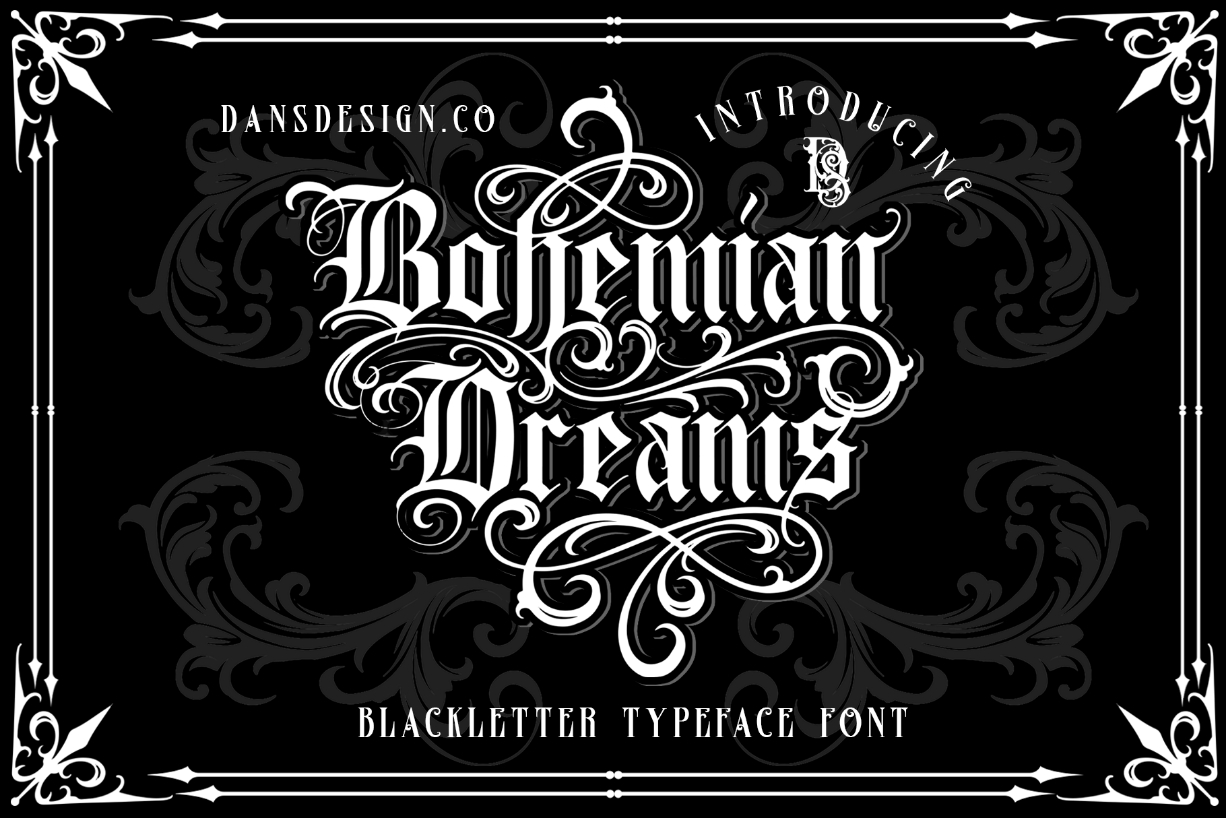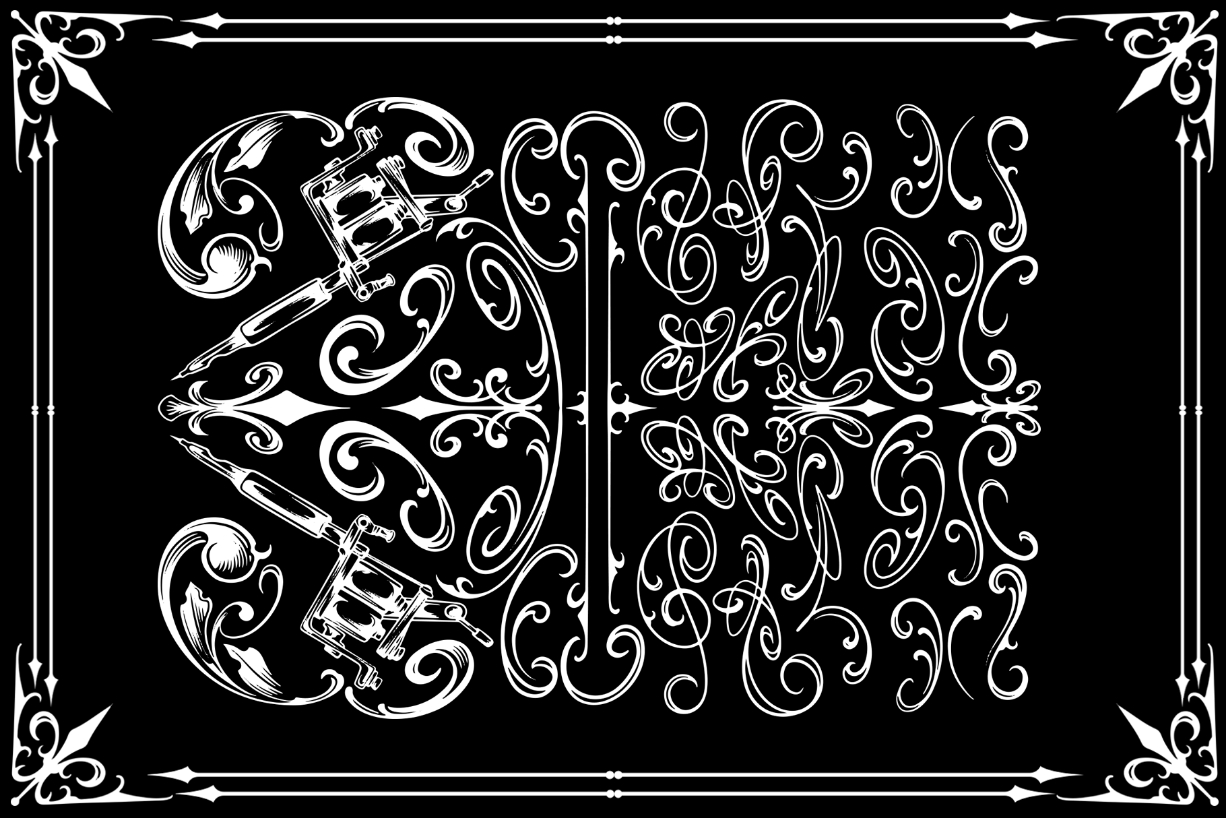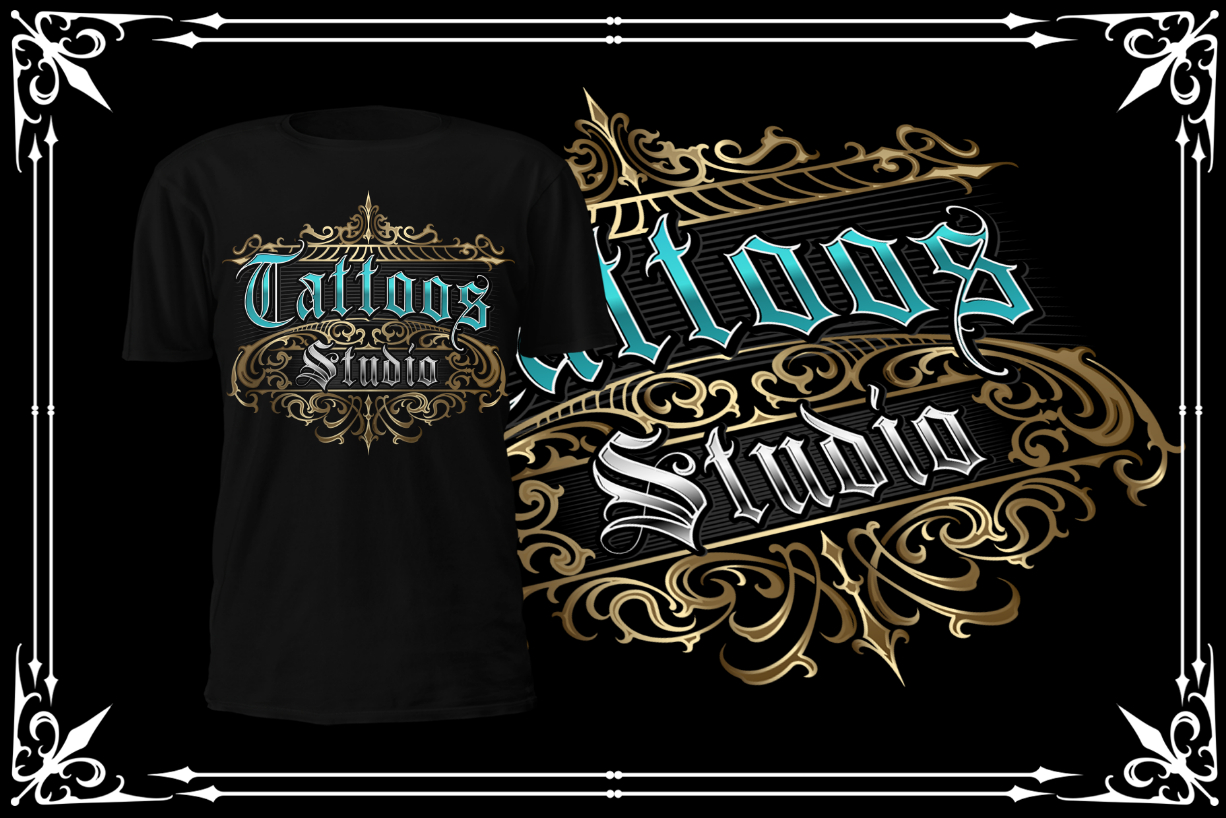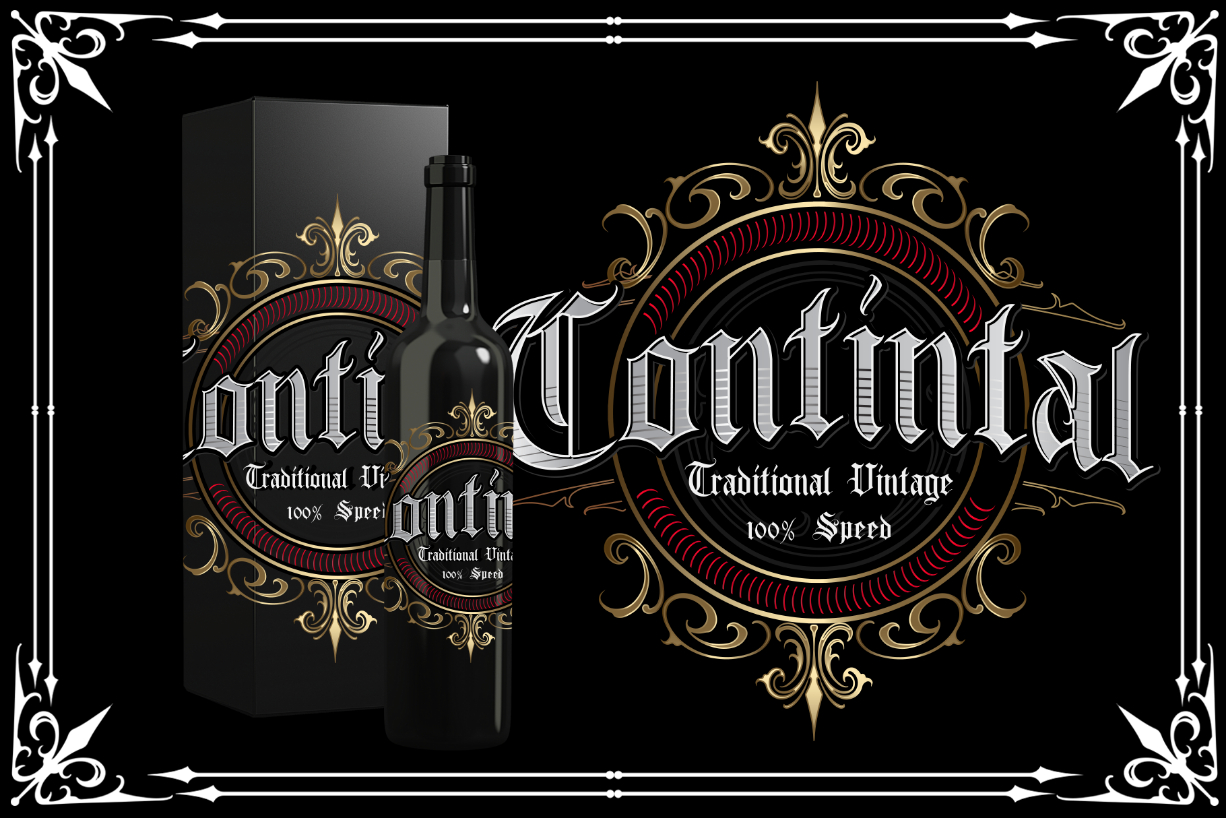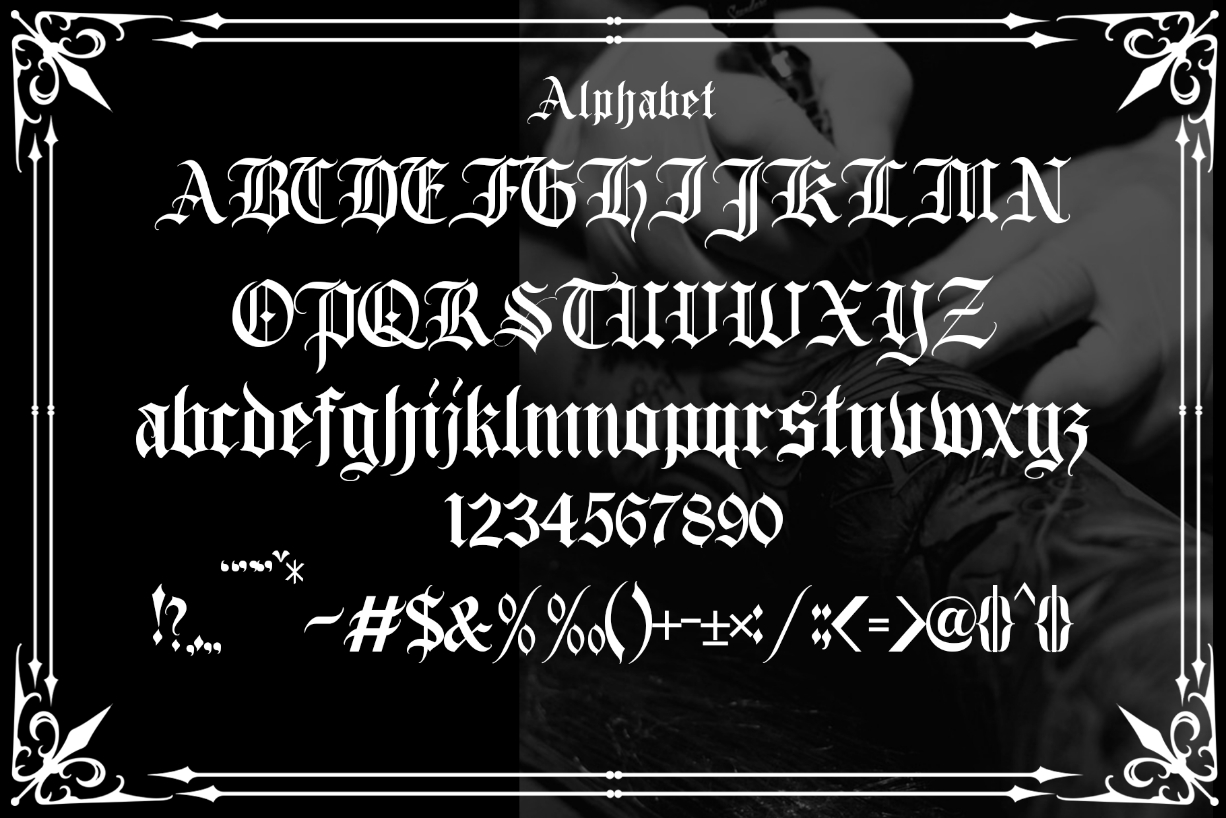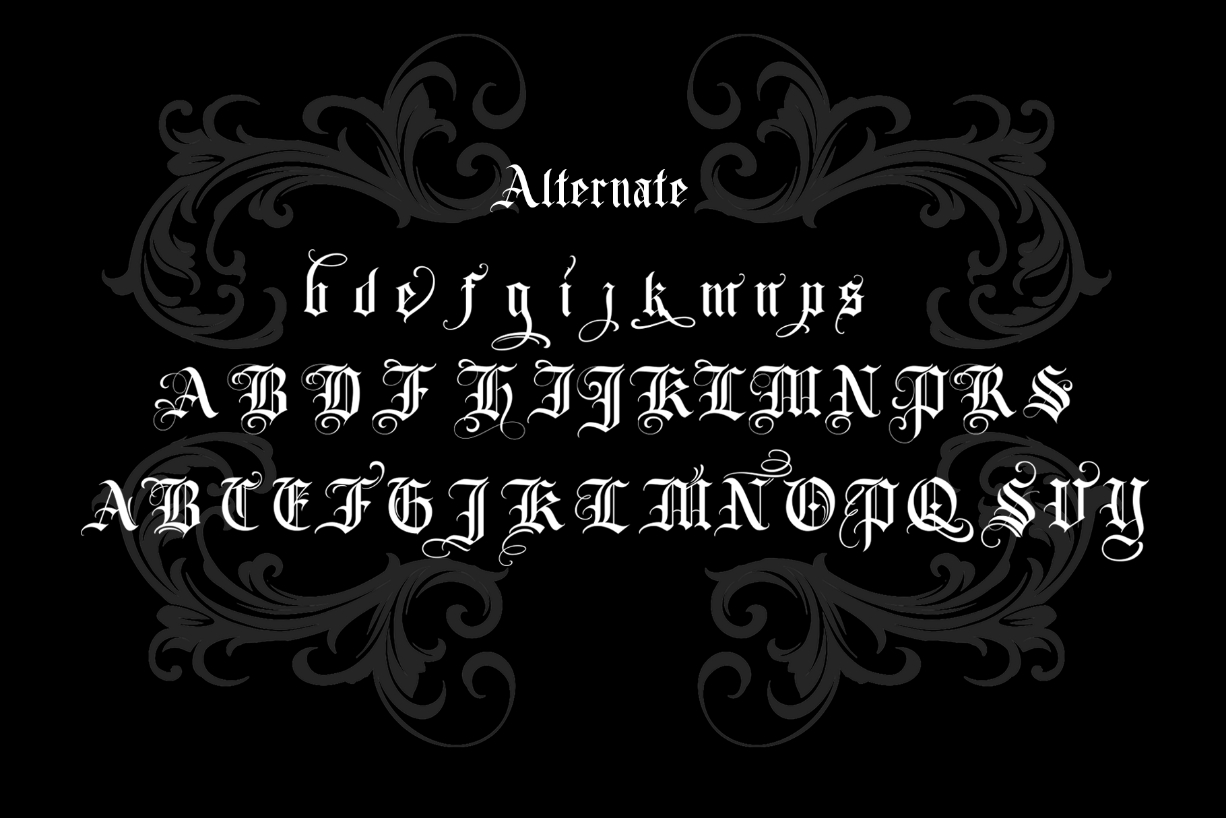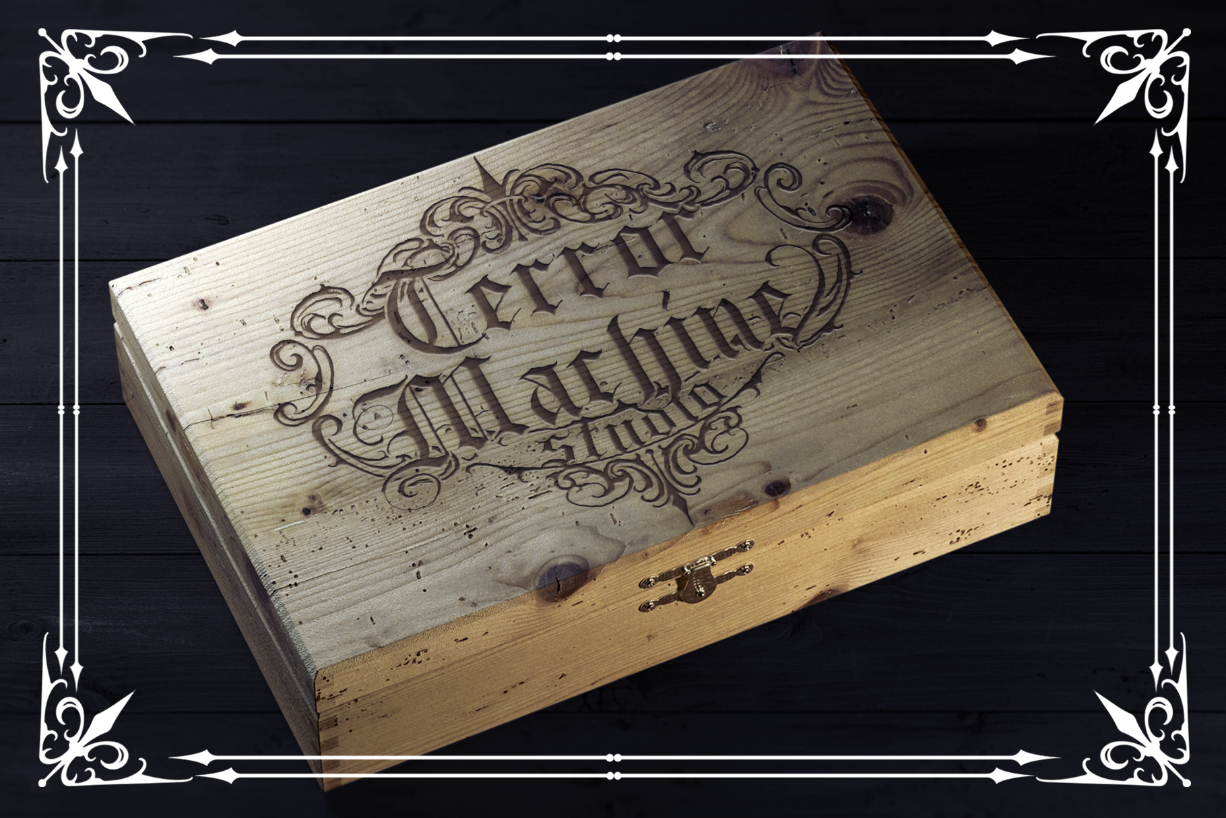
Bohemian Dreams Font
About Bohemian Dreams Font
Bohemian Dreams is a bold, distinct and elegant blackletter font. It is PUA encoded which means you can access all of the glyphs and swashes with ease! Add it confidently to your projects, and you will love the results.